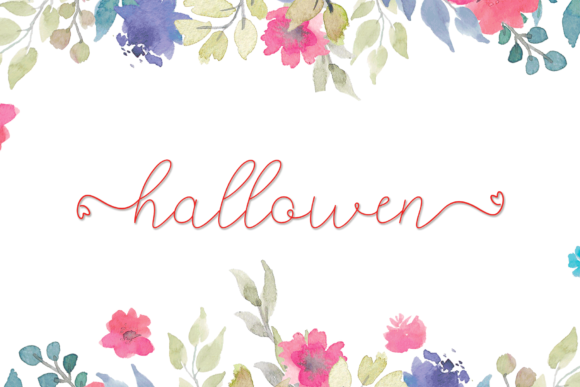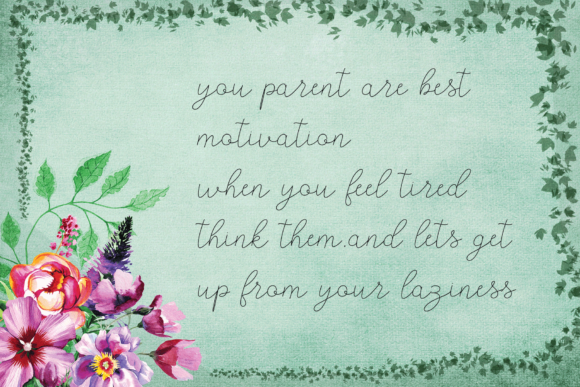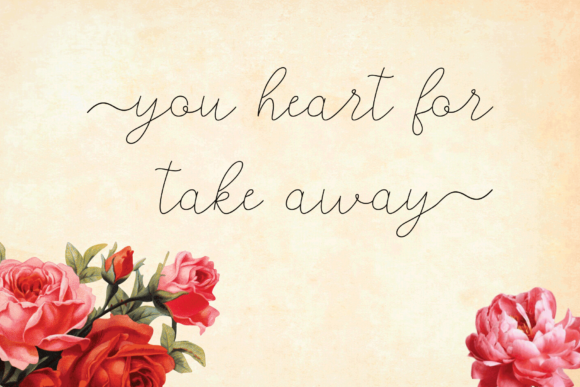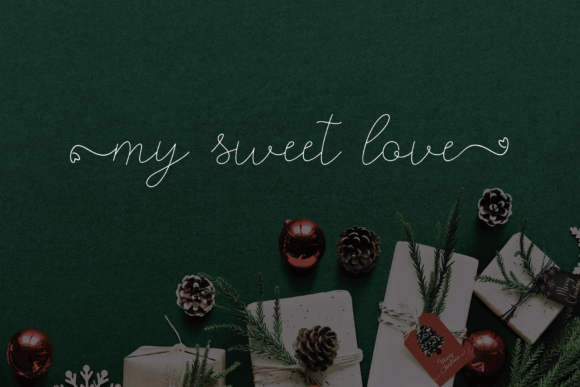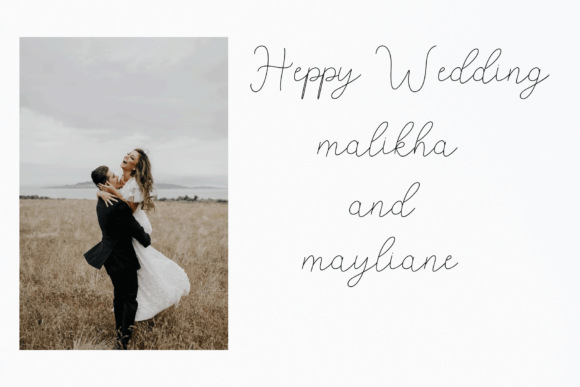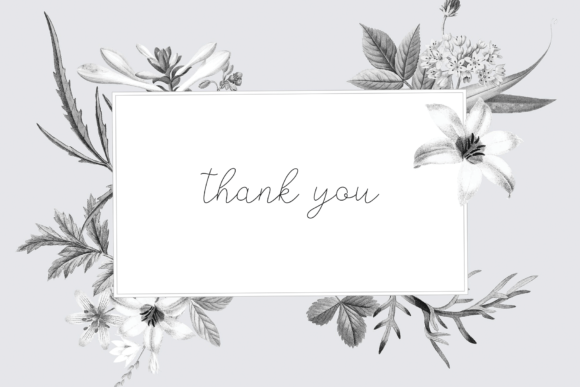
England Font: A Sweet and Natural Handwritten Font for Modern Designs
Are you looking for a font that can add a touch of modernity and elegance to your designs? Look no further than the England Font, a sweet and natural handwritten font that is sure to inspire your creativity. In this article, we’ll take a closer look at the England Font, its features, and how you can use it to elevate your designs.
What is England Font?
England Font is a beautiful, handwritten font that is designed to give your designs a personal and natural touch. With its smooth, flowing lines and elegant letterforms, this font is perfect for a wide range of design projects, from wedding invitations and branding materials to blog posts and social media graphics.
Key Features of England Font
- Handwritten style: England Font has a beautiful, handwritten style that gives it a personal and unique feel.
- Natural look: The font has a natural, effortless look that makes it perfect for designs that require a touch of elegance and sophistication.
- Modern design: Despite its handwritten style, England Font has a modern look that makes it perfect for contemporary designs.
- Easy to read: The font is highly legible, making it easy to read and understand, even at small sizes.
How to Use England Font in Your Designs
England Font is a versatile font that can be used in a wide range of design projects. Here are a few ideas to get you started:
- Wedding invitations: England Font is perfect for wedding invitations, with its elegant and sophisticated look.
- Branding materials: Use England Font to create beautiful branding materials, such as logos, business cards, and letterheads.
- Blog posts: Add a touch of elegance to your blog posts with England Font, perfect for lifestyle, fashion, and beauty blogs.
- Social media graphics: Use England Font to create eye-catching social media graphics, such as quote graphics and promotional images.
Tips for Using England Font Effectively
Here are a few tips to help you get the most out of England Font:
- Use it with a clean background: England Font looks best with a clean and simple background, which helps to showcase its elegant letterforms.
- Experiment with colors: Try pairing England Font with different colors to create a unique and eye-catching look.
- Use it sparingly: While England Font is beautiful, it can be overwhelming if used too much. Use it sparingly to create a sense of elegance and sophistication.
England Font is a beautiful, sweet, and natural handwritten font that is perfect for modern designs. With its elegant letterforms, natural look, and modern style, this font is sure to inspire your creativity and elevate your designs. Whether you’re a designer, crafter, or DIY enthusiast, England Font is a great addition to your font collection.
Get Inspired by England Font
Ready to get inspired by England Font? Here are a few examples of how you can use this font in your designs: